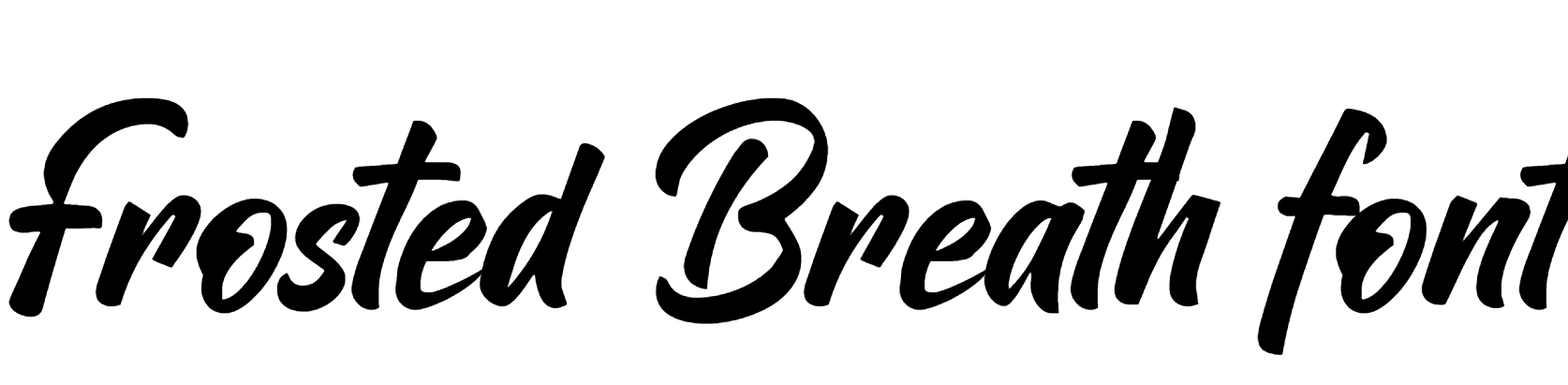
Frosted Breath font
Frosted Breath
Frosted Breath is a script font created by BlackFridayFont. It has that hand-lettered, flowing feel people look for when regular type seems too stiff. You can download it for free and test it with your own words in the preview above.
What You Can Type With Frosted Breath
You get every letter from A to Z in both cases and all the numbers from 0 to 9, which means Frosted Breath can handle full sentences, dates and prices. Common punctuation such as !, ?, @ and # is included as well. It also has the accented letters you need for Spanish, French, German, Portuguese and Italian.
Where Frosted Breath Works Best
Think of Frosted Breath for wedding invitations, logos and signature-style headings. Script fonts read best in short bursts, so keep it to names, titles and one-line quotes. Skip all caps: script capitals are drawn to start a word, not to fill one.
Does Frosted Breath support accented letters?
Yes. Frosted Breath includes the accented letters needed for Spanish, French, German, Portuguese and Italian, so it works for more than just English.